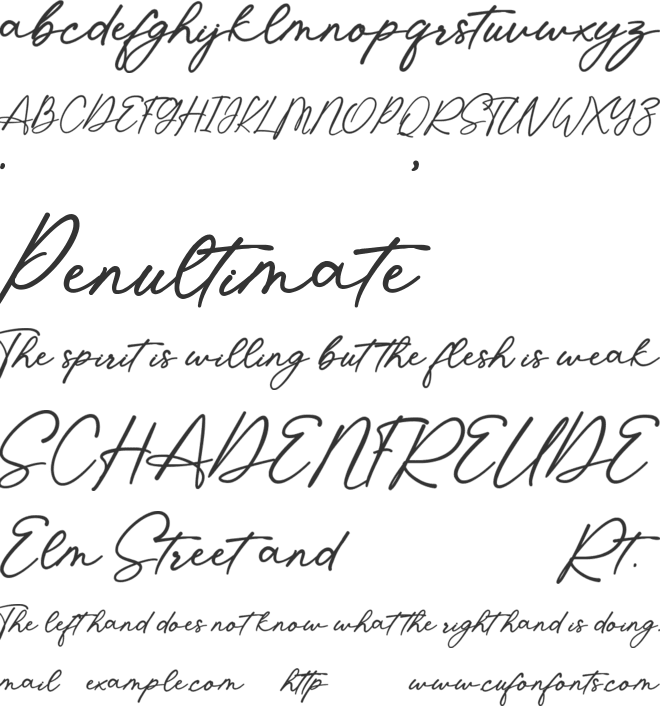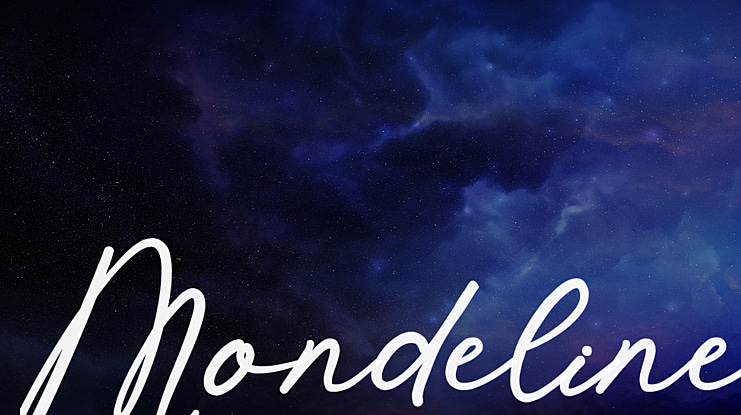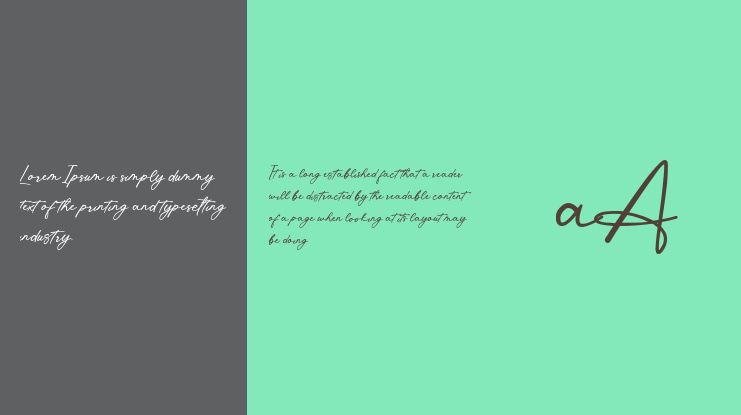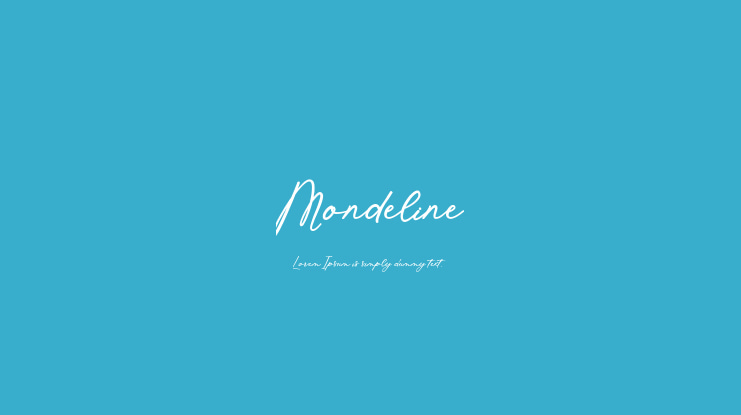
Mondeline Font
Mondeline Handwritten Font is a modern handwriting signature font with a unique feel and a stunning impact. It will add a luxury spark to any design project that you wish to create. This font is perfect for designing t-shirts, invitations, magazines, greeting cards, and more. this font was designed to enhance the beauty of your projects! This font is PUA encoded which means you can access all of the amazing glyphs and ligatures with ease!
– Uppercase, Lowercase, Numeral & Punctuation
– Alternate Letters, Ligature & Swash/Tail